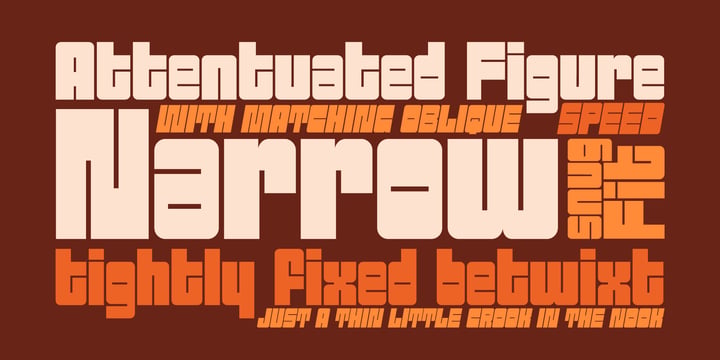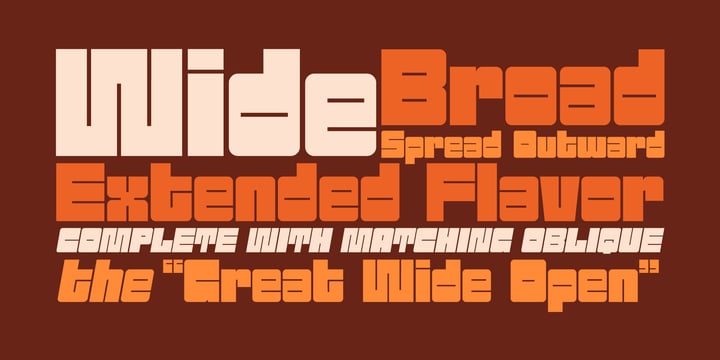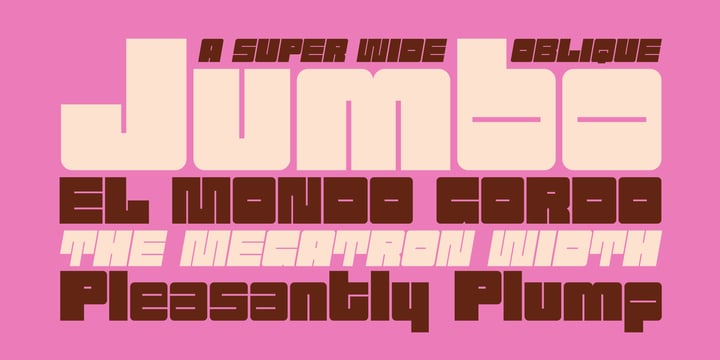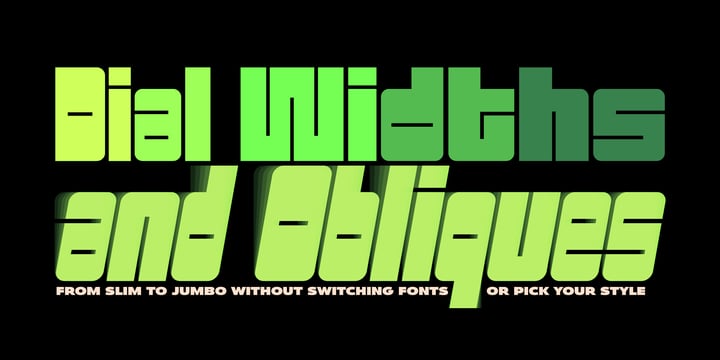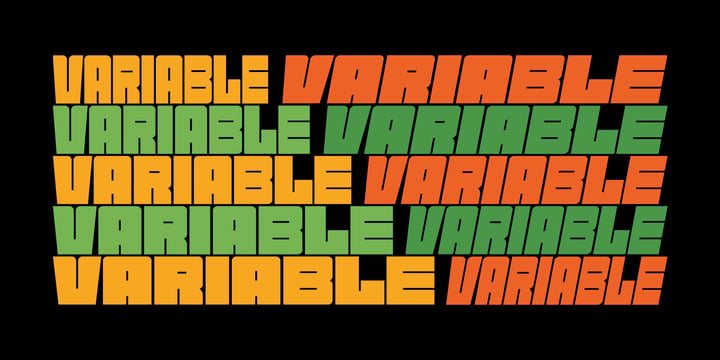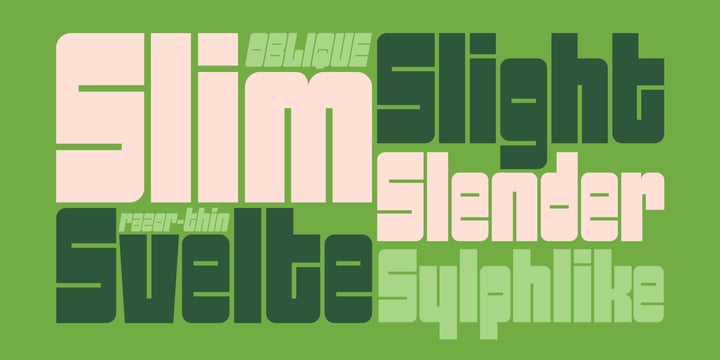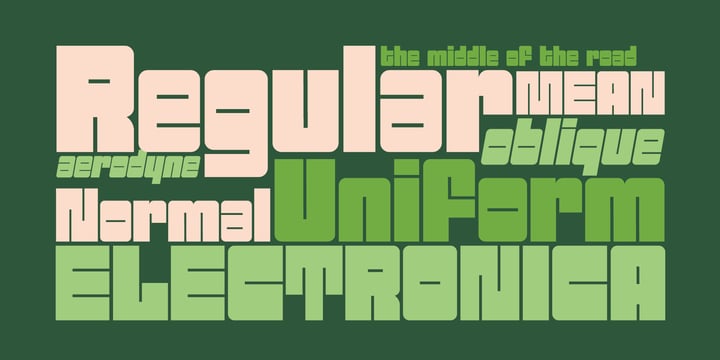
Sackem PB Complete Bundle Static And Variable
Sackem PB Complete Bundle (Static + Variable) is the best-value way to own the full Sackem system: the complete 10-font static family plus the Sackem Variable Font in one bundle. This heavyweight geometric display design—famous for its tiny counters and bold mechanical punch—began as a revival of the classic Lettergraphics film typeface Benman Jumbo and was expanded into widths from Slim through Jumbo with matching obliques. The static fonts give you dependable, production-ready instances for any workflow, while the Variable Font puts the entire range into a single file so you can dial in the exact width and slant you want in seconds. Built for posters, logos, packaging, sports graphics, and loud headline typography, this bundle delivers maximum flexibility, faster testing, and a complete set of styles without compromise.